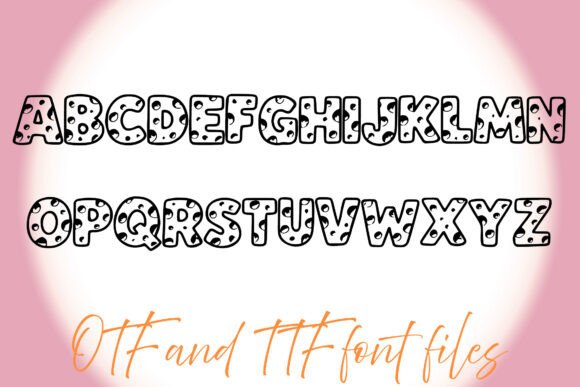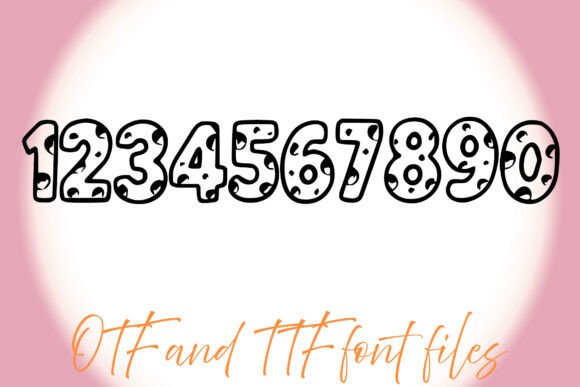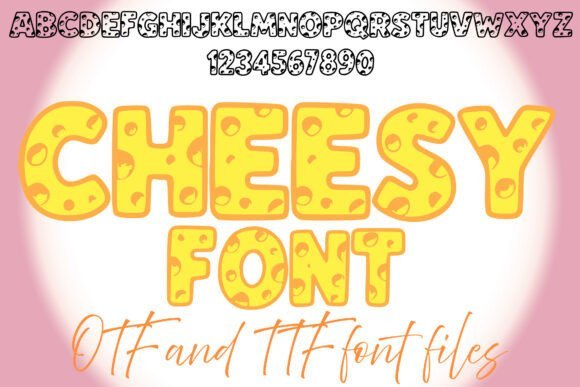
The Cheesy Charm of Typography
Do you ever get that moment when you’re brainstorming ideas and suddenly, a font pops into your head? For me, it was a late-night pizza craving that sparked the thought of a font that’s as playful as it is delicious. And that’s when I stumbled upon Cheesy Font – the perfect blend of whimsy and warmth that’s sure to bring a smile to your face.
As a designer, you’re always on the lookout for fonts that add an extra layer of personality to your projects. That’s where Cheesy Font comes in – its chunky, cheese-textured letters are a match made in heaven for food packaging, kids content, party posters, and more. Whether you’re designing for a client or just having fun, Cheesy Font is the perfect tool to add some cheesy charm to your work.
Cheesy Font Key Features
- Font Family: A custom-designed font with a playful, retro aesthetic.
- Unique Characteristics: Distinctive “cheesy” feel, with exaggerated letterforms and subtle texture, perfect for adding a touch of whimsy to designs.
Designer Review: “Cheesy Font”
I’ve got to say, “Cheesy Font” is a real showstopper. The whimsical flair and playful charm ✨ of this font are undeniable. It’s perfect for adding a dash of fun and personality to your designs, from posters to social media graphics.
- Unique aesthetic: “Cheesy Font” brings a fresh, quirky vibe to your designs that’s hard to find elsewhere.
- Versatility: This font works well for a range of projects, from casual to more formal applications.
- Easy to read: Despite its playful nature, “Cheesy Font” is surprisingly easy to read, even in smaller sizes.
That being said, there are some limitations to consider ⚠️. For one, the font may not be suitable for more professional or corporate projects, as it can come across as too casual. Additionally, some of the characters may not be as detailed or refined as you’d like.
Overall, I think “Cheesy Font” is a solid choice for designers looking to add some personality to their work. While it may not be perfect for every project, it’s a great addition to any font collection.
Tips for Getting the Most Out of Cheesy Font
For best results, use Cheesy Font sparingly and in creative contexts such as:
- Food and drink branding
- Retro-themed designs
- Whimsical illustrations